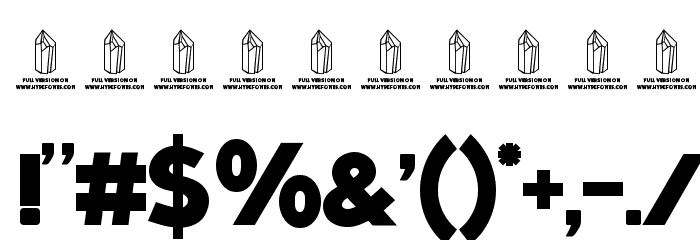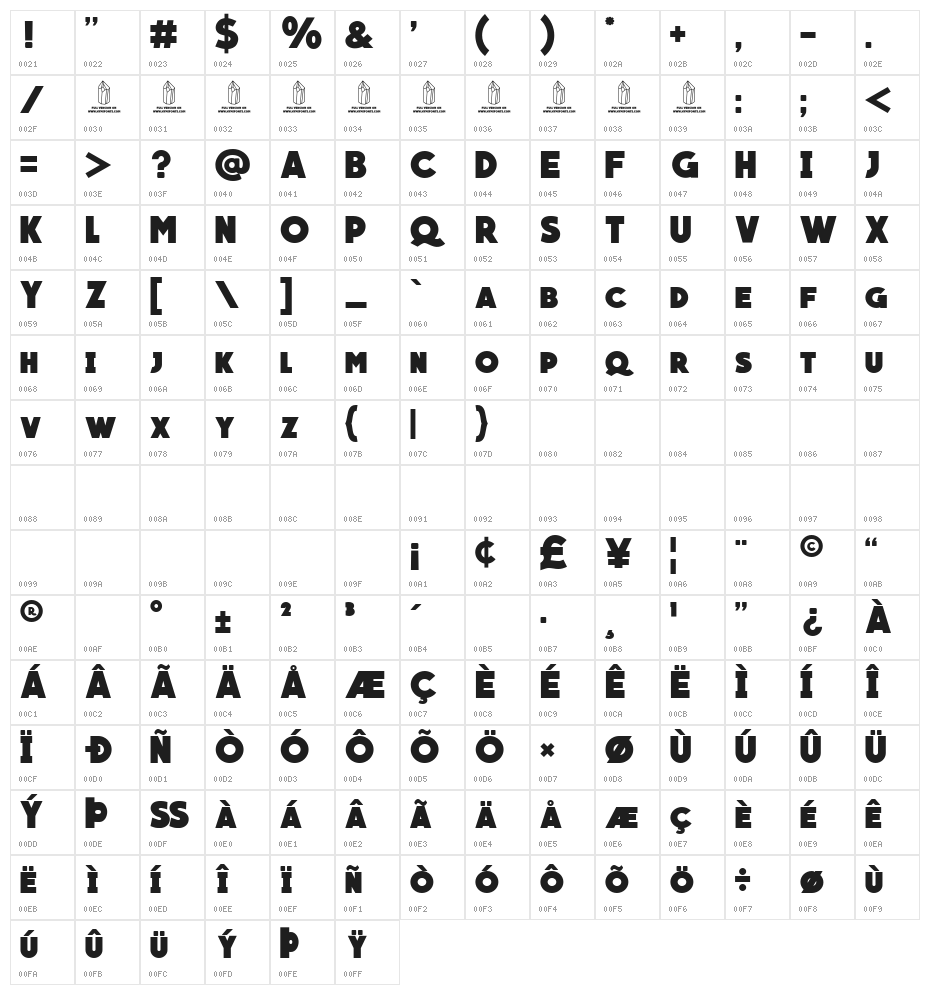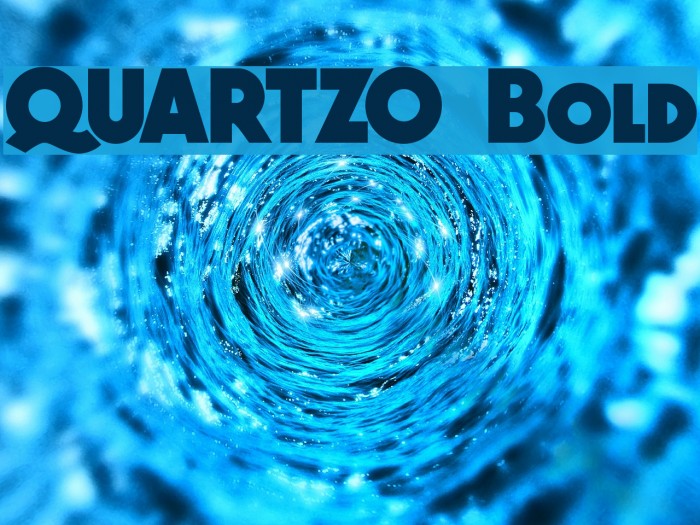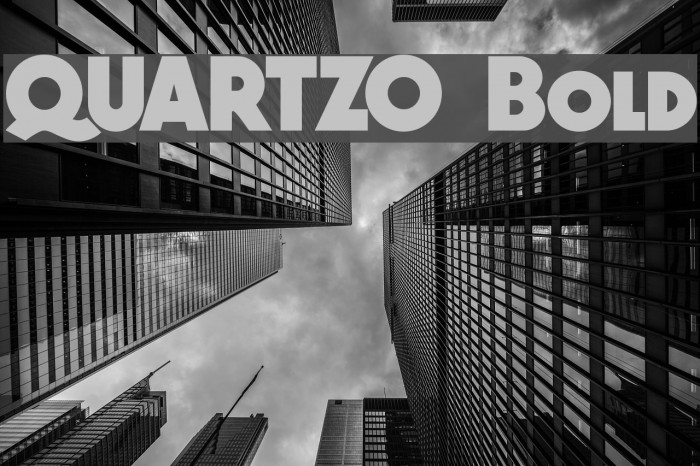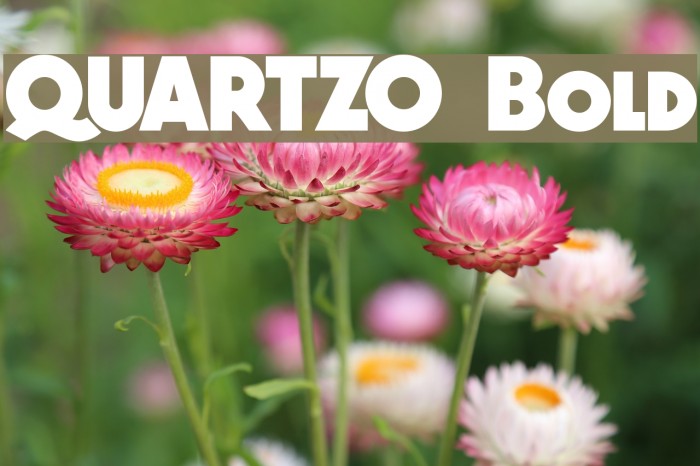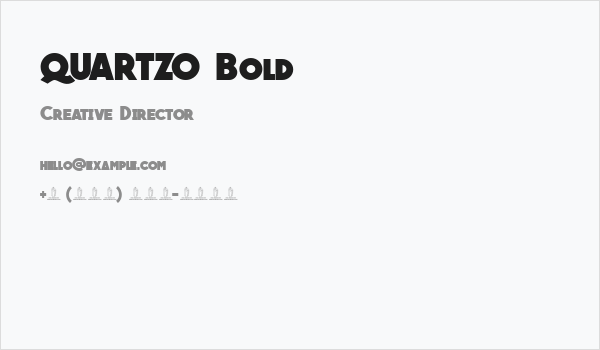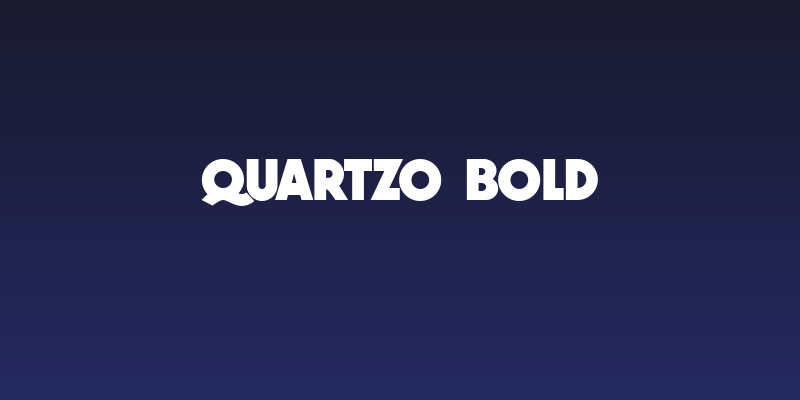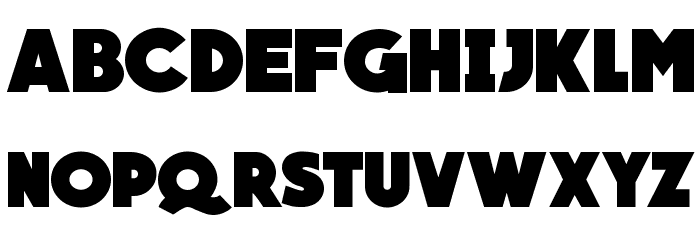
QUARTZO Bold Font
QUARTZO Bold Description
This bold and striking font features thick, geometric letterforms with a strong presence. The uppercase letters are uniform in height and width, creating a cohesive and impactful look. The font's design is characterized by its sharp angles and clean lines, giving it a modern and assertive appearance. The numbers and special characters maintain the same boldness and geometric style, ensuring consistency across all elements. This font is ideal for making a statement, with its high visibility and attention-grabbing qualities.
| Proposed Projects | Ideal for branding, headlines, posters, and any project requiring a strong visual impact. |